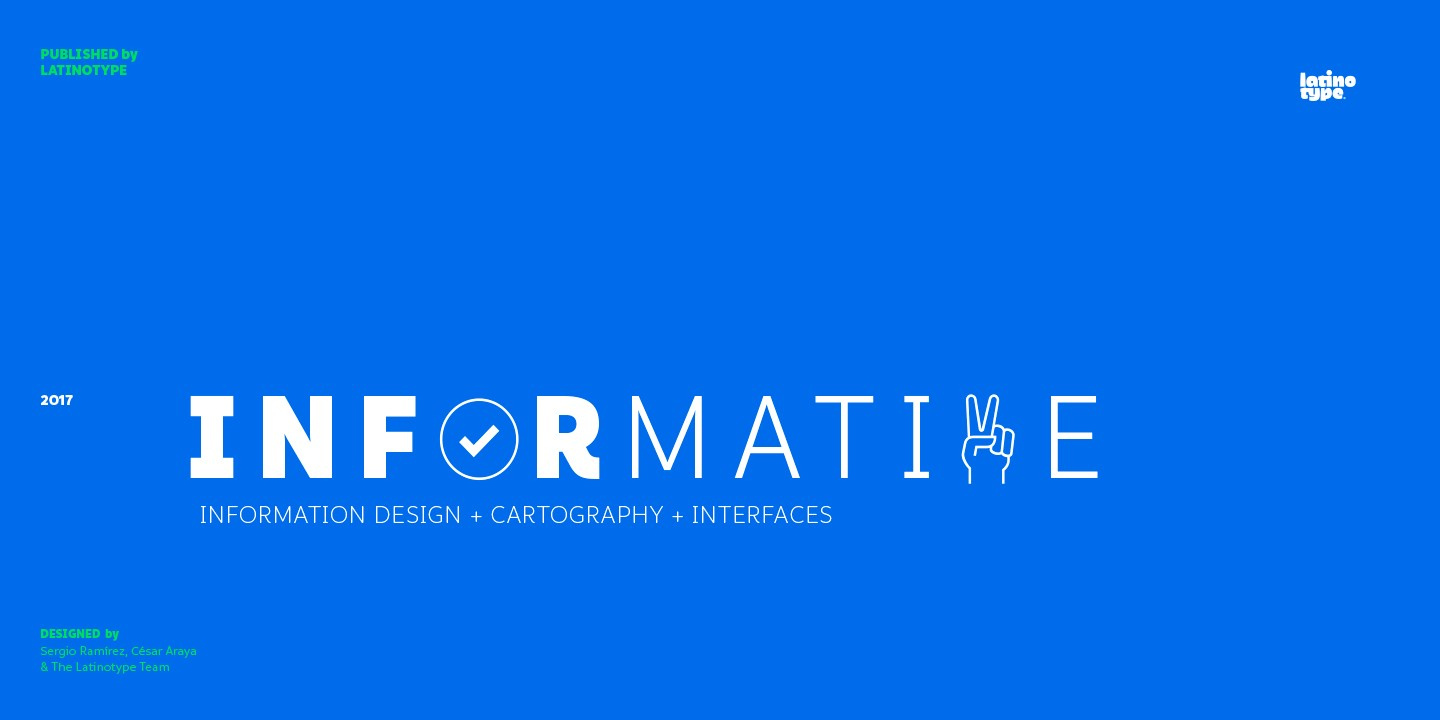
Informative Font
Informative Font is perfect for educational institution branding, instructional design materials, knowledge-based platforms, information systems, training program documentation, news publication typography, reference guide layouts, and clear communication campaigns. This enlightening typeface works exceptionally well in both digital applications and print media where clarity and knowledge transmission are fundamental design requirements.
What makes Informative Font so exciting is its systematic interpretation of educational clarity and information design through precisely engineered letterforms that facilitate optimal knowledge transfer and comprehension. The font features clear characters with pedagogical proportions, educational spacing, and instructional details that communicate expertise, learning facilitation, and the structured approach necessary for effective information delivery. Its educational personality and knowledge-focused heritage make it ideal for organizations seeking to establish authority in educational markets while appealing to audiences who value clear information, systematic learning, and the reliable transmission of knowledge across diverse educational contexts.
The Informative Font family includes comprehensive weight variations from light to bold, along with matching italic styles and educational alternates. Each style maintains the typeface's clear character while offering extensive multilingual support, systematic numerals, educational punctuation marks, and special characters designed to enhance instructional communications and knowledge-based branding efforts across global educational and information markets.
This remarkable typeface represents the perfect convergence of educational methodology and contemporary typography for learning and information industries. Whether you're developing educational platform identities, creating instructional materials, or designing knowledge management systems, Informative Font Free Download delivers the educational clarity and versatility needed for successful information communications. The font's systematic approach makes it particularly effective for schools, training organizations, educational publishers, and institutions prioritizing clear information delivery and effective knowledge transmission.
The precisely calibrated educational construction and optimized learning performance in Informative Font ensure maximum comprehension while maintaining distinctive informational character. Its systematic presence makes it ideal for educational branding, informational marketing materials, and instructional communications where its full informative character can create lasting understanding and establish immediate association with knowledge, clarity, and the systematic pursuit of educational excellence.